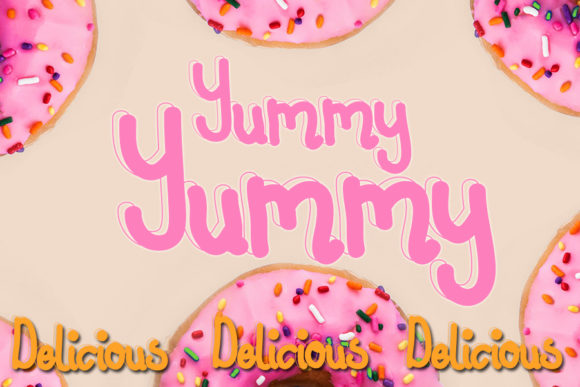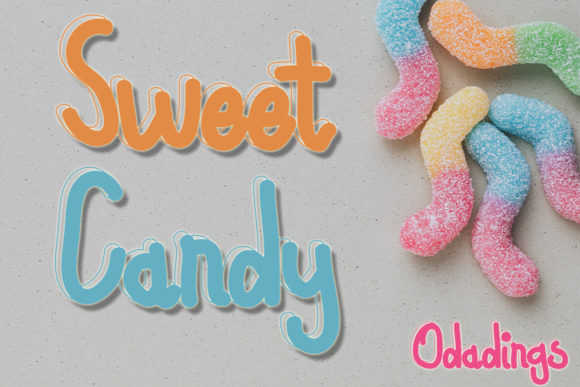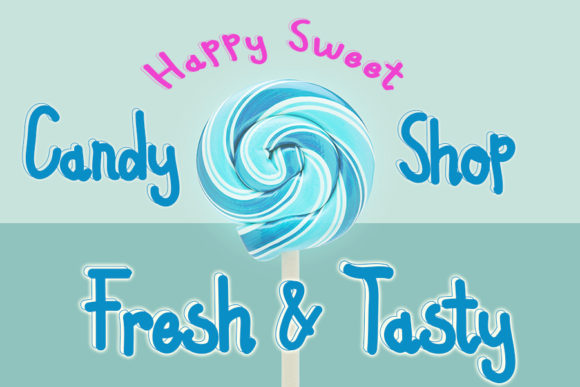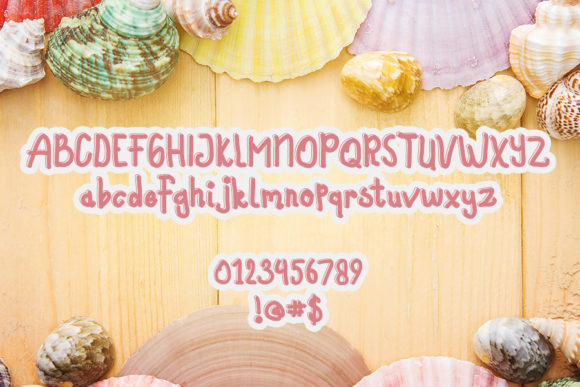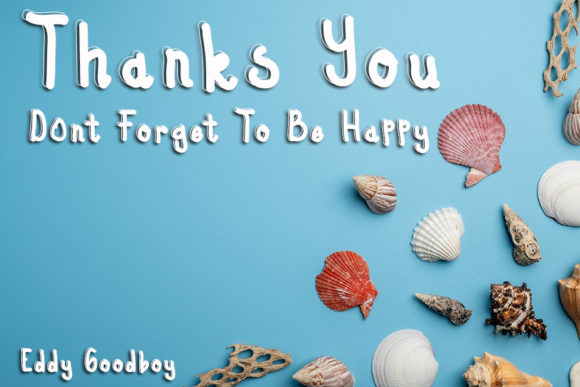
Happy Sunday Font: Add a Joyful Touch to Your Designs
Are you tired of using the same old fonts in your designs? Do you want to add a playful and joyful touch to your creative projects? Look no further than the Happy Sunday Font! This cute and playful display font is perfect for designers and crafters who want to make their designs stand out.
What is Happy Sunday Font?
Happy Sunday Font is a unique and fun display font that is sure to bring a smile to anyone’s face. Its playful and jolly design makes it perfect for adding a touch of whimsy to your designs. Whether you’re working on a project for a client or creating something for personal use, Happy Sunday Font is sure to add a joyful touch.
Features of Happy Sunday Font
- Cute and Playful Design: Happy Sunday Font has a unique and playful design that is sure to catch the eye.
- Display Font: This font is perfect for headlines, titles, and other display text.
- Easy to Read: Despite its playful design, Happy Sunday Font is easy to read and understand.
- Versatile: This font can be used in a variety of designs, from digital projects to print materials.
Design Ideas Using Happy Sunday Font
Happy Sunday Font is a versatile font that can be used in a variety of design projects. Here are a few ideas to get you started:
- Social Media Graphics: Use Happy Sunday Font to create fun and engaging social media graphics.
- Party Invitations: Add a playful touch to your party invitations with Happy Sunday Font.
- Digital Art: Use Happy Sunday Font to add a joyful touch to your digital art projects.
- Print Materials: Use Happy Sunday Font in your print materials, such as brochures, flyers, and posters.
In conclusion, Happy Sunday Font is a cute and playful display font that is perfect for designers and crafters who want to add a joyful touch to their designs. With its unique and playful design, Happy Sunday Font is sure to make your designs stand out. Whether you’re working on a digital project or creating print materials, Happy Sunday Font is a great choice.